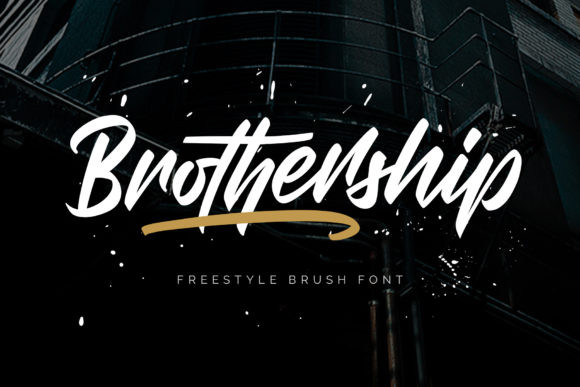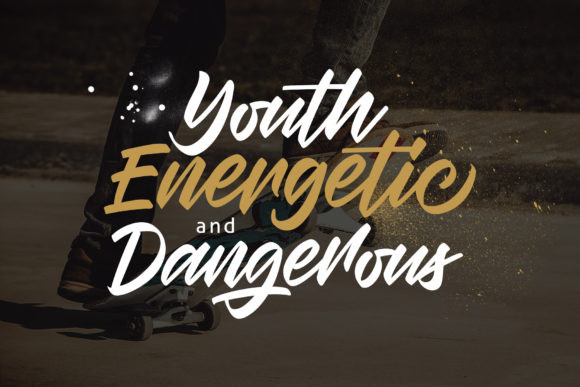
Brothership Font
Brothership FontBrothership feels equally charming and elegant. It looks lovely on wedding invitations, thank you cards, quotes, greeting cards, logos, business cards and every other design which needs a handwritten touch.